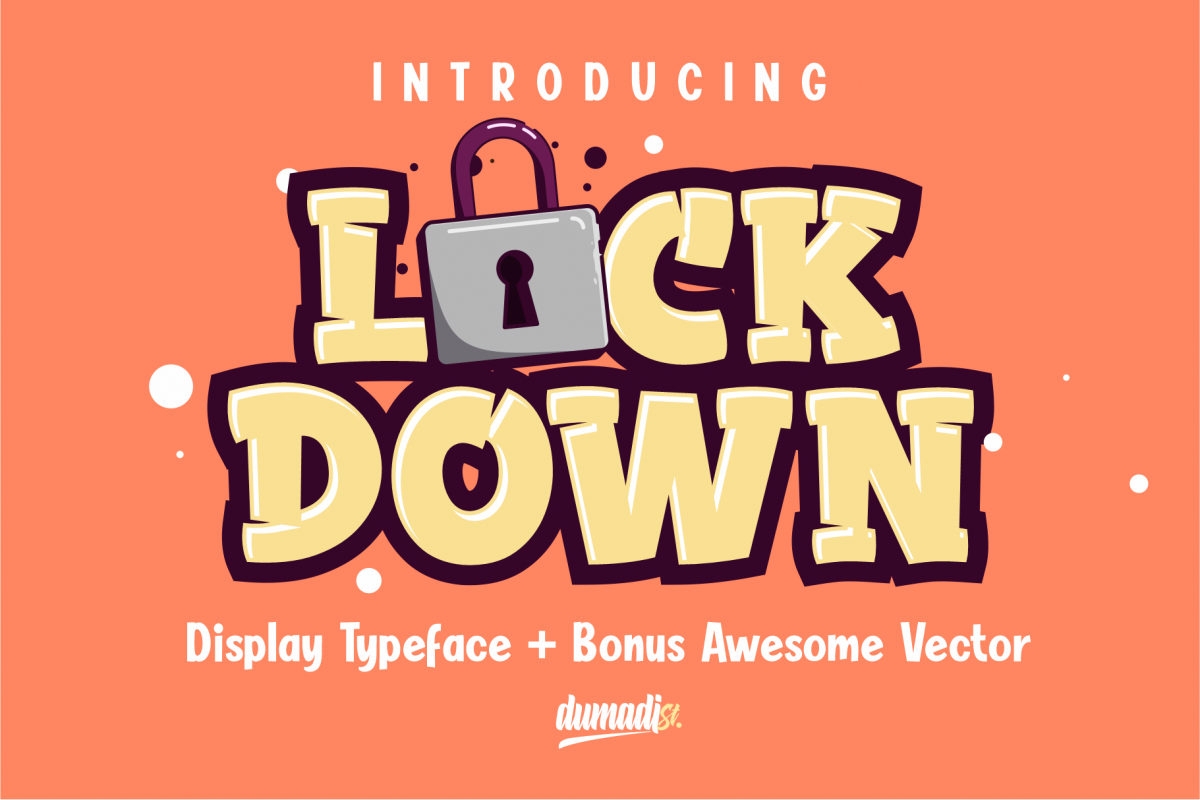
LOCKDOWN
Lockdown is a thick type of display made by hand. with a fun style that can be collaborated with vectors, especially with animal vectors. Lockdown is suitable for various media such as clothing design, poster design, logos and other designs.